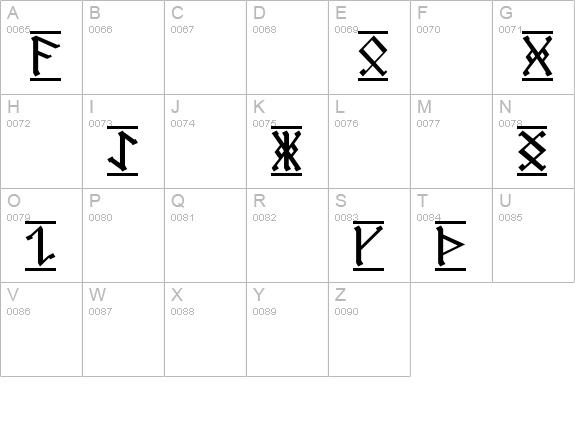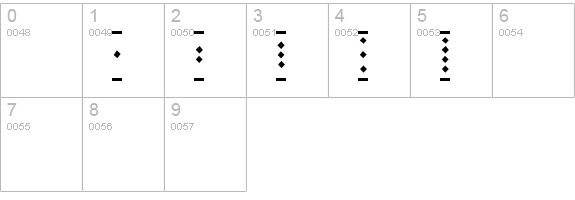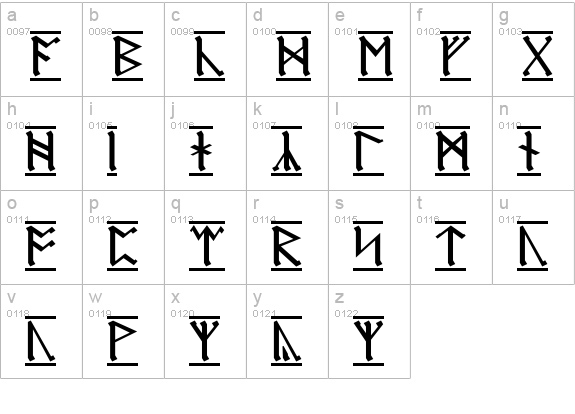
AngloSaxon Runes 1 font is a stunning display typeface inspired by the ancient runic writing system of the Anglo-Saxons. This unique font exudes a sense of mystery and history, perfect for adding a touch of ancient charm to your projects. The intricate details and angular shapes of the runes give this font a distinct and captivating appearance. Best of all, AngloSaxon Runes 1 font is available for free download at FontsMarket.com. Whether you're looking to create a mystical design, a historical document, or simply add an interesting twist to your text, this font is a versatile and eye-catching choice. Download it today and explore the world of Anglo-Saxon runes with this beautiful and authentic typeface.